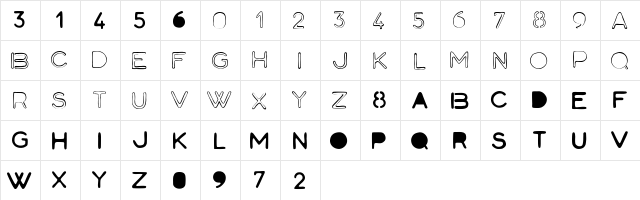
Normograph Black & White Regular
Design Context for Normograph Black & White Typeface
Normograph Black & White takes a measured approach to typography — its balanced proportions and neutral character make it a reliable workhorse for both digital and print work.